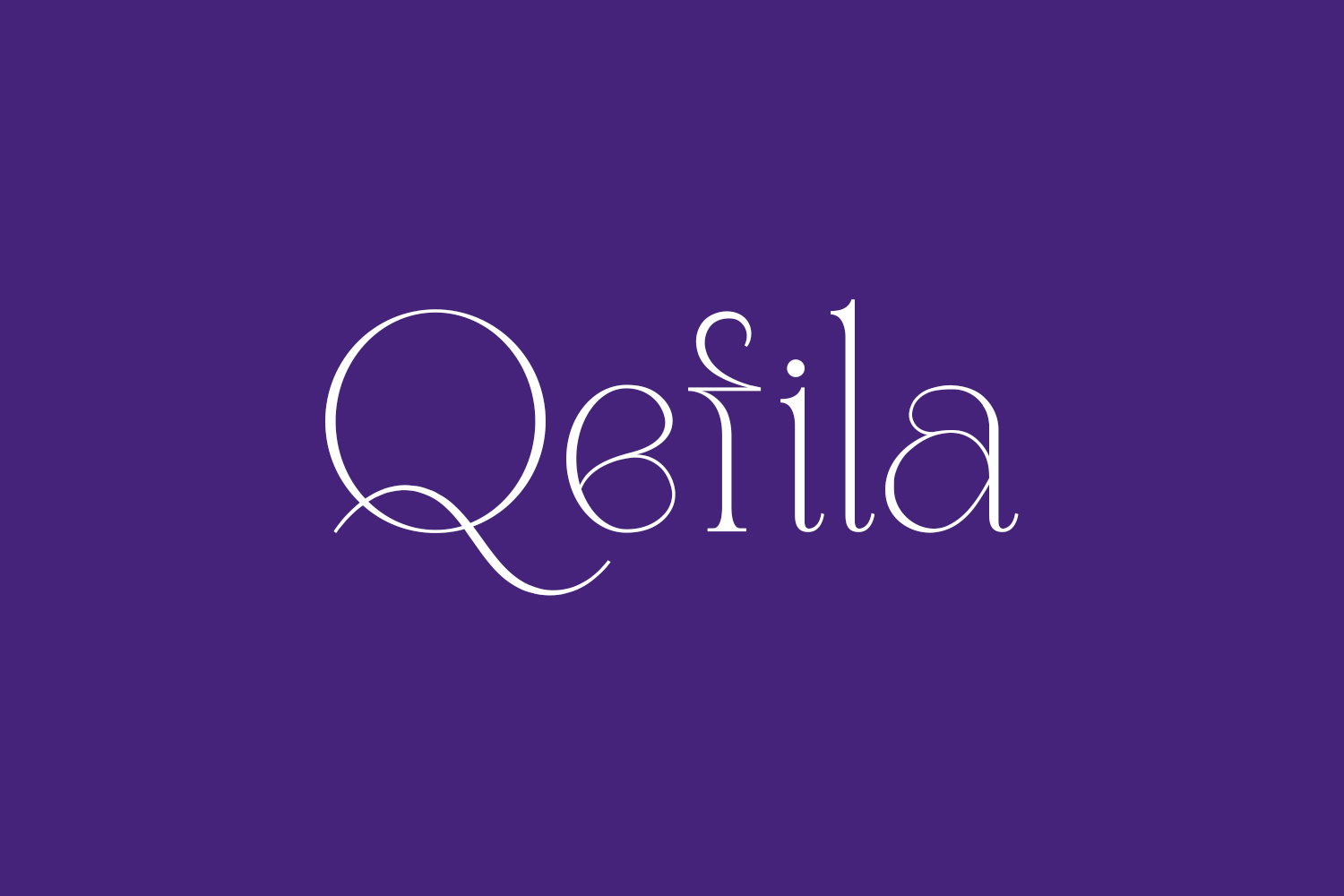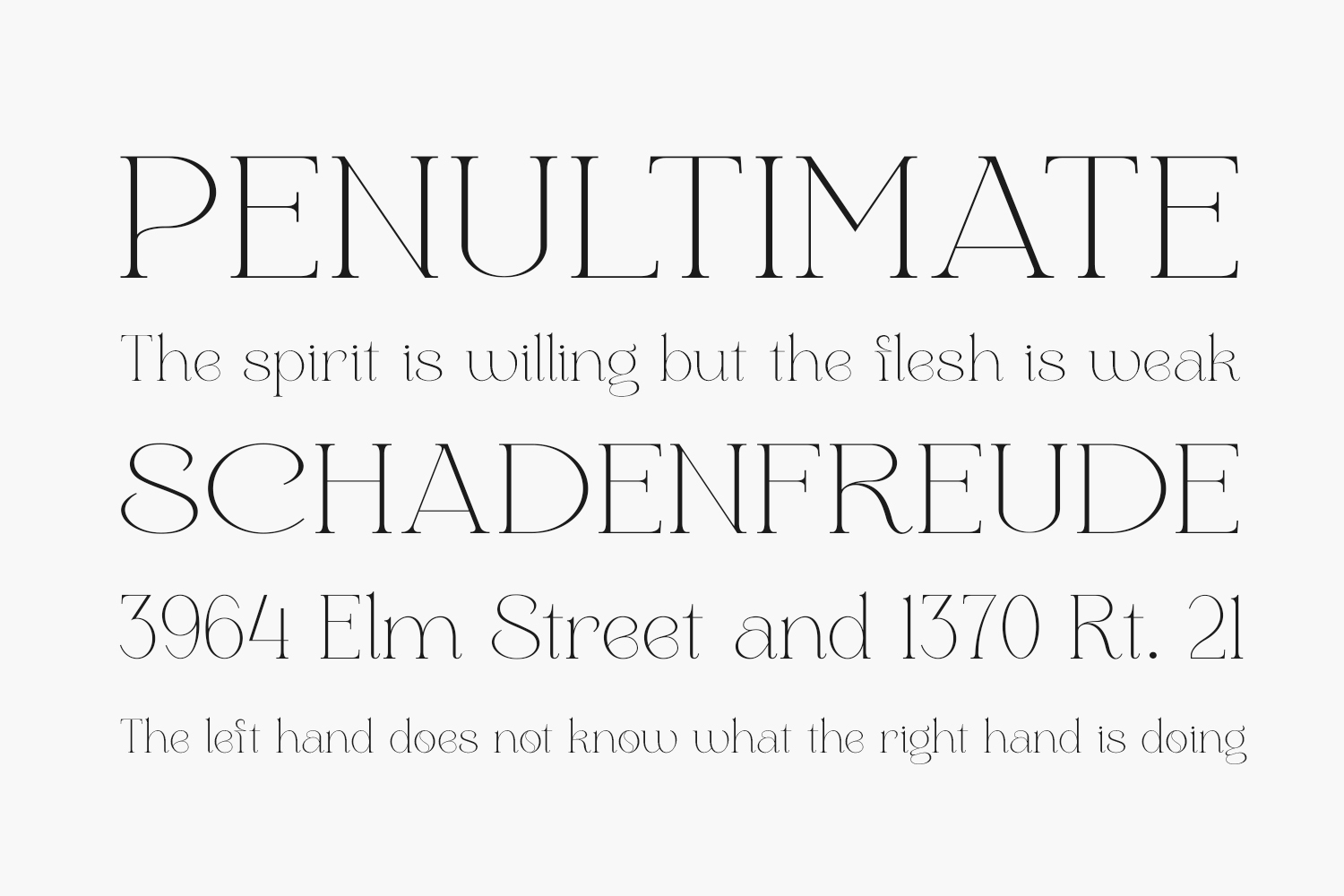
Introducing Qefila Typeface Free Font, a sophisticated and timeless serif font that combines modern aesthetics with a touch of elegance. This versatile typeface is an ideal choice for creating luxurious logos, captivating book or movie titles, fashionable brands, stylish magazines, trendy apparel, captivating lettering, inspiring quotes, and so much more. Experience the seamless blend of contemporary design and classic charm with Qefila Typeface. Qefila Typeface Free Font is free for personal use only. Please purchase the full version for commercial use.